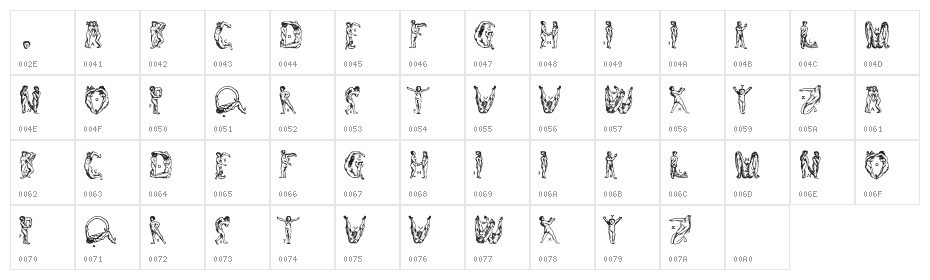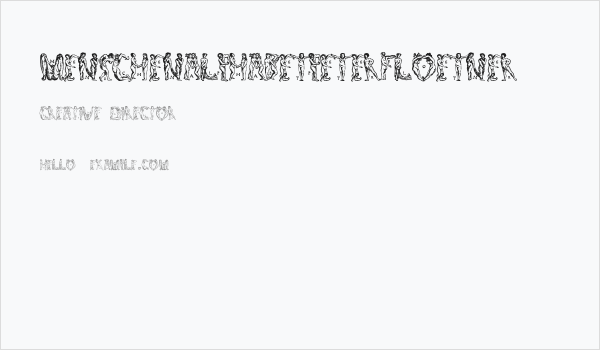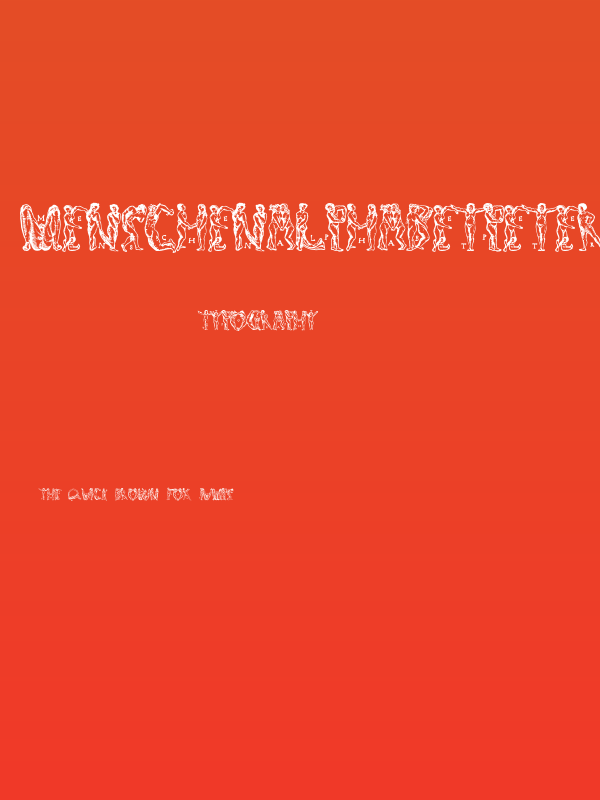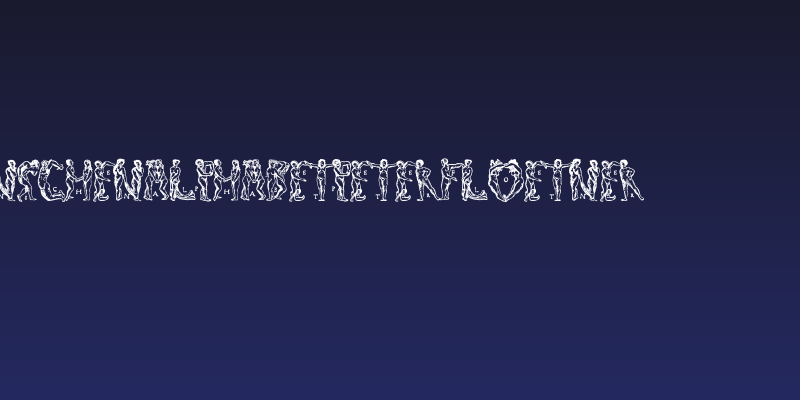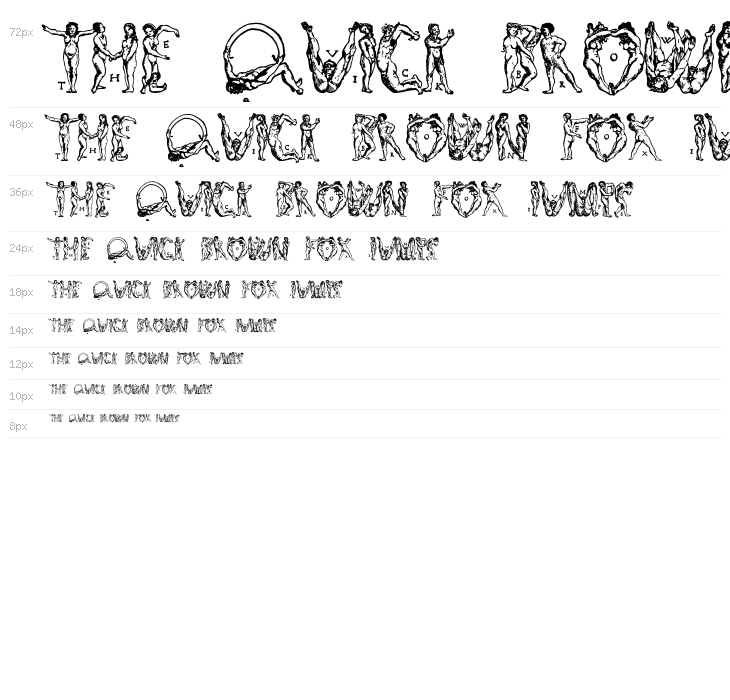
MenschenalphabetPeterFloetner1534 Font
MenschenalphabetPeterFloetner1534 Description
This unique and artistic font is composed entirely of human figures, creatively arranged to form each letter and number. The figures are intricately detailed, showcasing a blend of Renaissance art style with a playful twist. Each character is a small scene, with multiple figures interacting to create the shape of the letter or number. This font is highly decorative and visually engaging, making it a standout choice for projects that require a touch of historical artistry and whimsy. The figures are depicted in various poses, adding a dynamic and lively feel to the text.
| Use Case | Logos, Posters, Artistic Displays |
| Proposed Projects | Ideal for artistic projects, historical themed events, creative posters, and unique branding materials. |